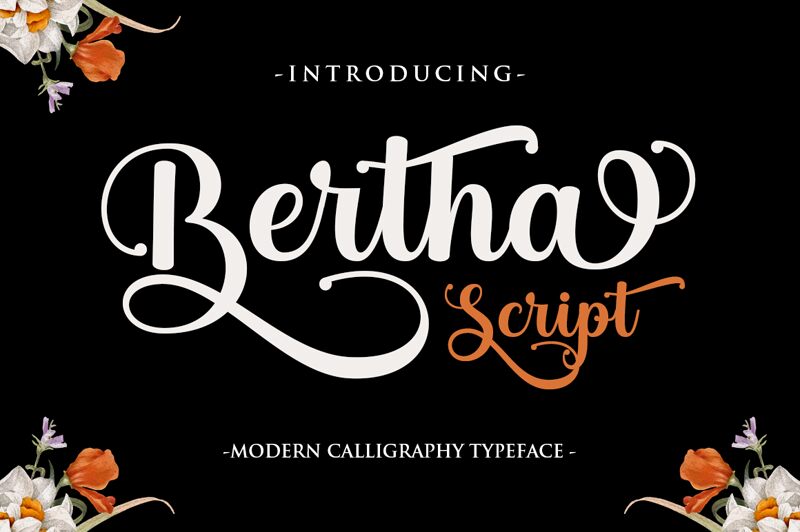
Bertha Script by Romi Rahmadi is an exquisite calligraphy font with a semi-bold weight that exudes elegance and sophistication. Its smooth and flowing script is perfect for adding a touch of luxury to your branding, wedding invitations, or greeting cards. Bertha Script's stylish curves and swashes make it suitable for both feminine and masculine projects. Use it to create stunning logos, headlines, or social media graphics that stand out from the crowd. With its unique personality and refined aesthetic, Bertha Script is the perfect choice for any project that requires a touch of class and creativity.
Bertha Script